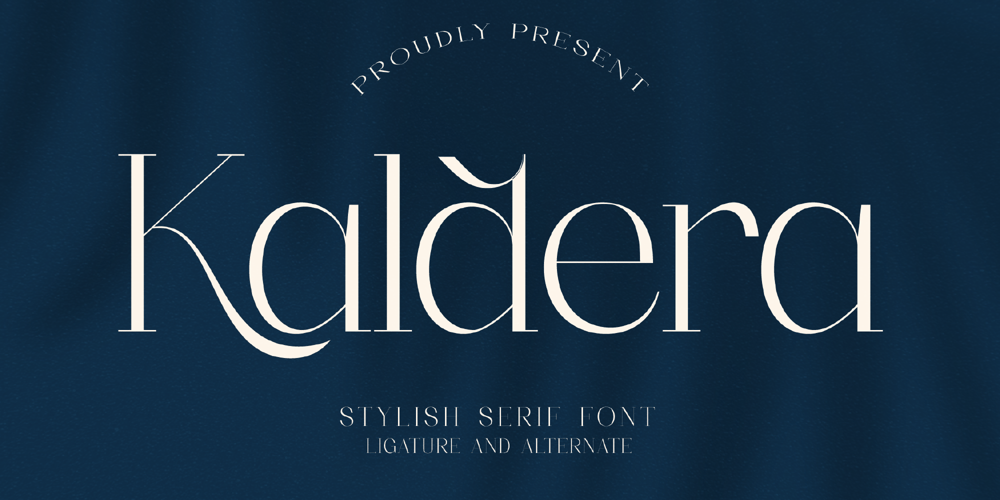
Kaldera Font Family was designed by Heru Utama Putra and published by Letterena Studios. Kaldera contains 2 styles and family package options. Kaldera is a modern and classic serif typeface that has its own unique style and exquisite look.This font is perfect for elegant and luxurious logos, book or movie title designs, fashion brands, magazines, clothes, lettering, quotes, and so much more.